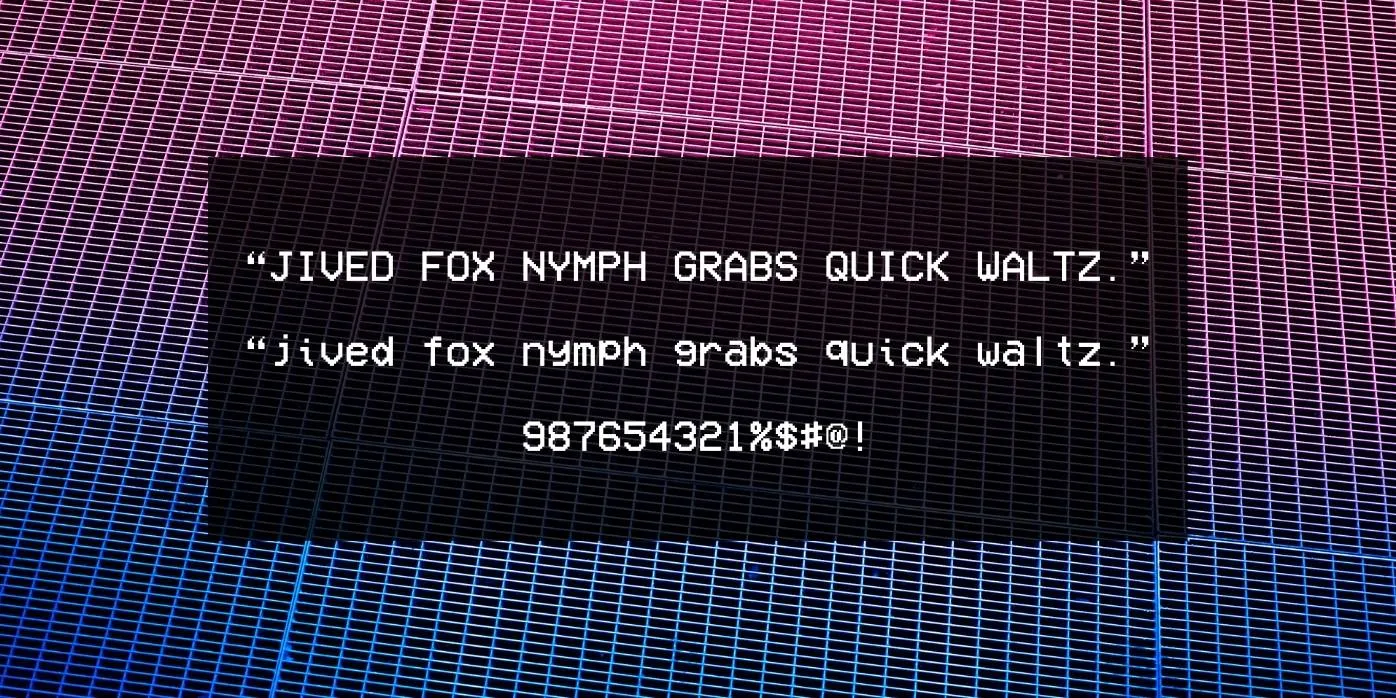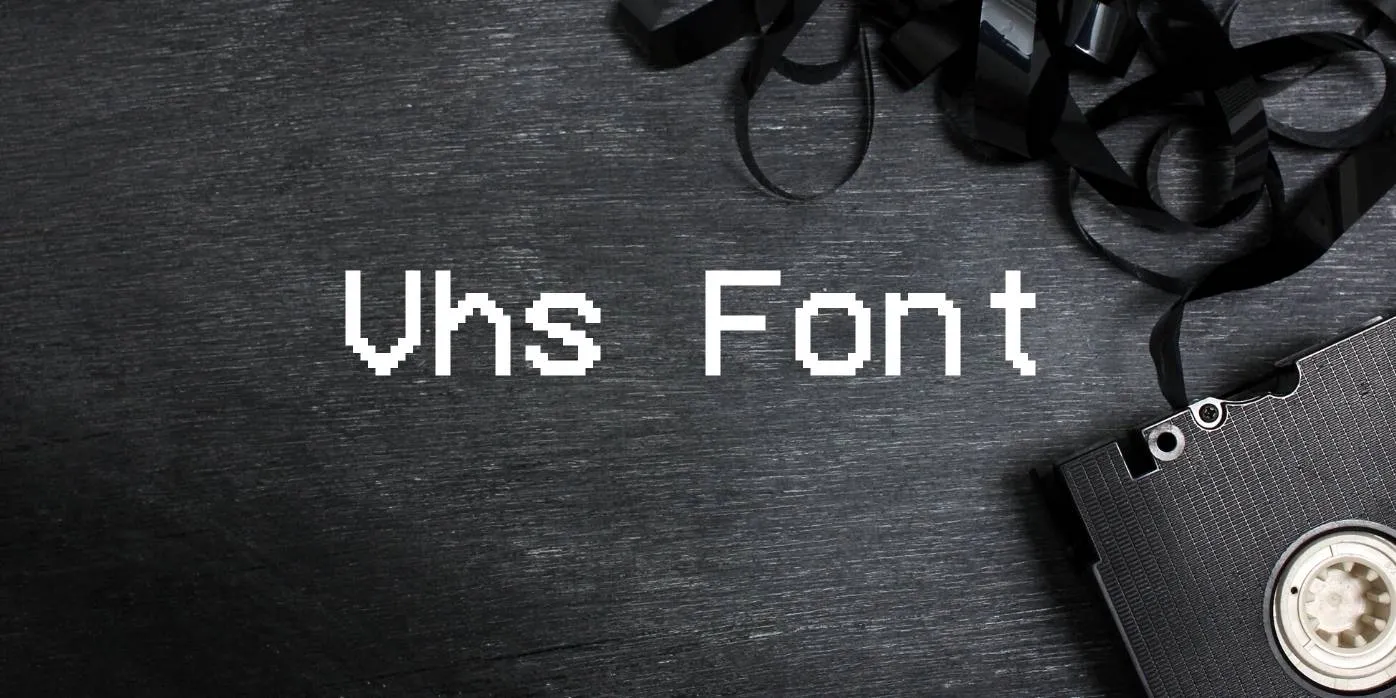
Vhs Font
Here, we present a stylish typeface known as Vhs Font. This typeface belongs to the display typeface. The main designer of this family was Riciery Leal. This font was first released on 10th May 2016.
It is best for Adobe. This typeface is available in a single style that contains 200 unique glyphs. The best thing about this font is that it includes regular and bold weights. Moreover, it supports international languages.